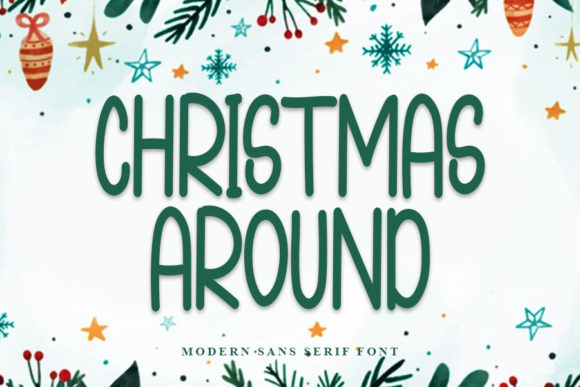
Christmas Around Font
Introducing Christmas Around Font, the ultimate sans serif font that will make your designs merry and bright! This stunning font family is perfect for adding a touch of holiday cheer to any project, whether it's a Christmas card, a festive website, or even a festive business email.
With its clean lines and elegant curves, Christmas Around Font is both sophisticated and charming. It's the perfect choice for creating eye-catching headlines, festive logos, and heartwarming holiday greetings. And because it's a sans serif font, it's easy to read and comprehend, even at small sizes.
* It's perfect for creating festive holiday designs.
* It's easy to read and comprehend, even at small sizes.
* It's incredibly versatile and can be used for a wide range of projects.